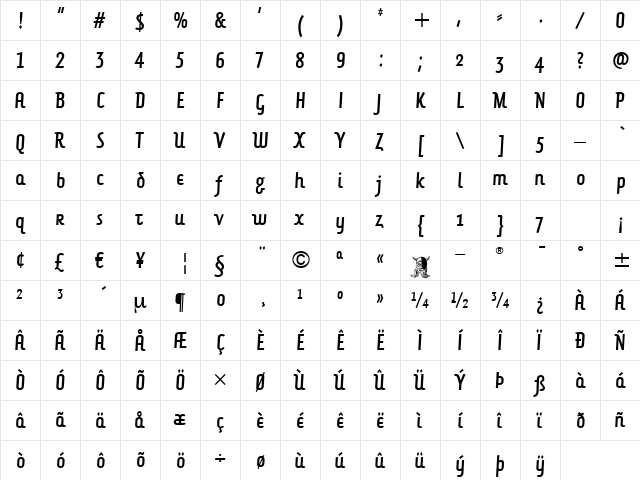
ForkbeardCondensedITC TT Regular Font Preview
ForkbeardCondensedITC TT Regular
ForkbeardCondensedITC TT Regular Font Details
| Foundry | International Typeface Corporation |
| Designer | Michael Gills |
Design Context for ForkbeardCondensedITC TT Typeface
ForkbeardCondensedITC TT is a composed and adaptable typeface that performs quietly and consistently across a wide range of design contexts. The condensed width makes it efficient for tight spaces without sacrificing legibility.